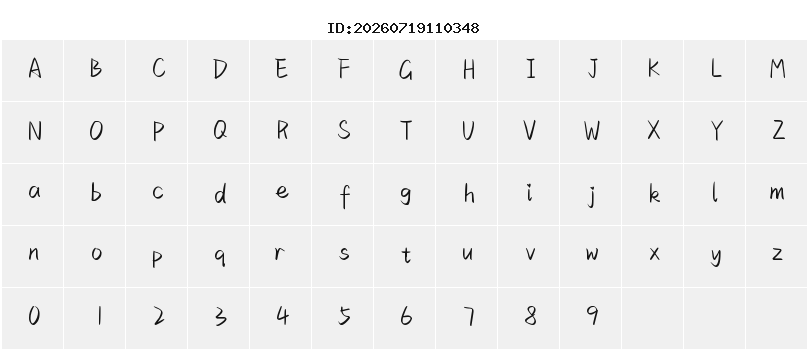
YEFONTAiDeXinDianTu 標準 Preview
• Font Name: YEFONTAiDeXinDianTu 標準
• Full Font Name: 也字工厂爱的心电图 标准
• PostScript Name: YEFONTAiDeXinDianTu-Regular
• Manufacturer: 也字工厂
About YEFONTAiDeXinDianTu 標準.TTF
YEFONTAiDeXinDianTu 標準.TTF is a modern, elegant sans-serif font designed for ultimate readability and visual harmony. Perfect for branding, headlines, web design, and print materials.